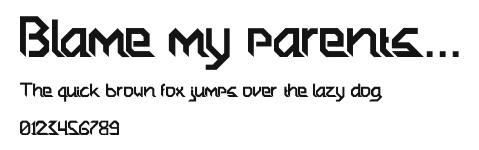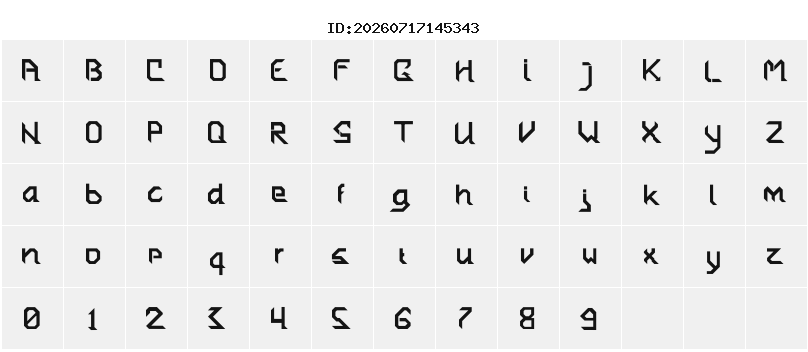
• Font Name: Blame my parents...
• Full Font Name: Blame my parents...
• Designer: High-Logic - Erwin Denissen
• Manufacturer: High-Logic
About Blame my parents....ttf
Blame my parents....ttf is a modern, elegant sans-serif font designed for ultimate readability and visual harmony. Perfect for branding, headlines, web design, and print materials.